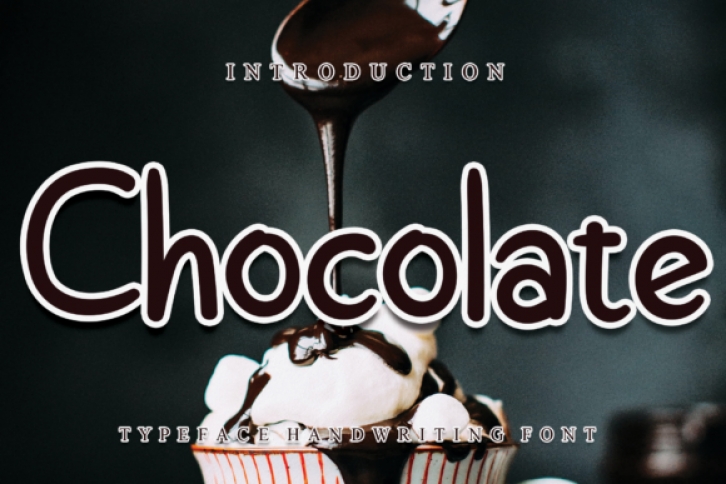
Chocolate is a sweet and simple handwritten font. Dainty and joyful, this font will be ideal for writing wedding invitations, cards or any other design that may need a romantic, personalized touch!